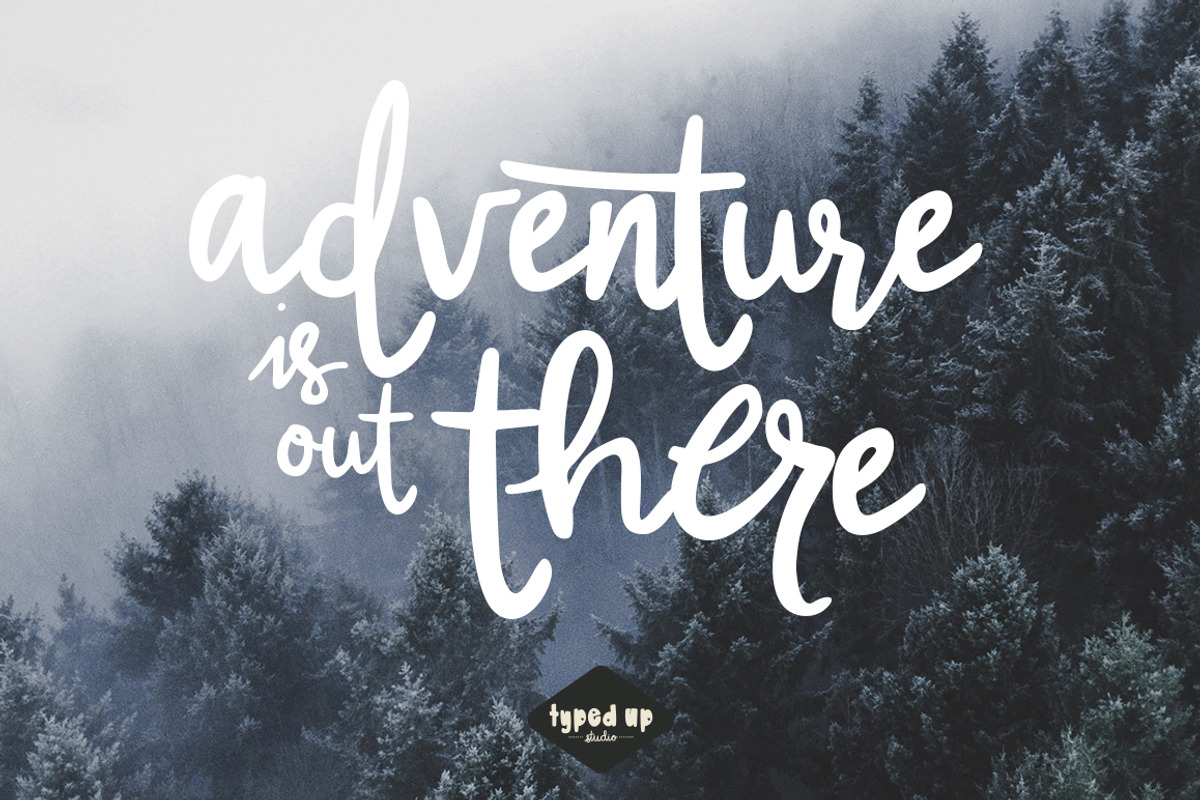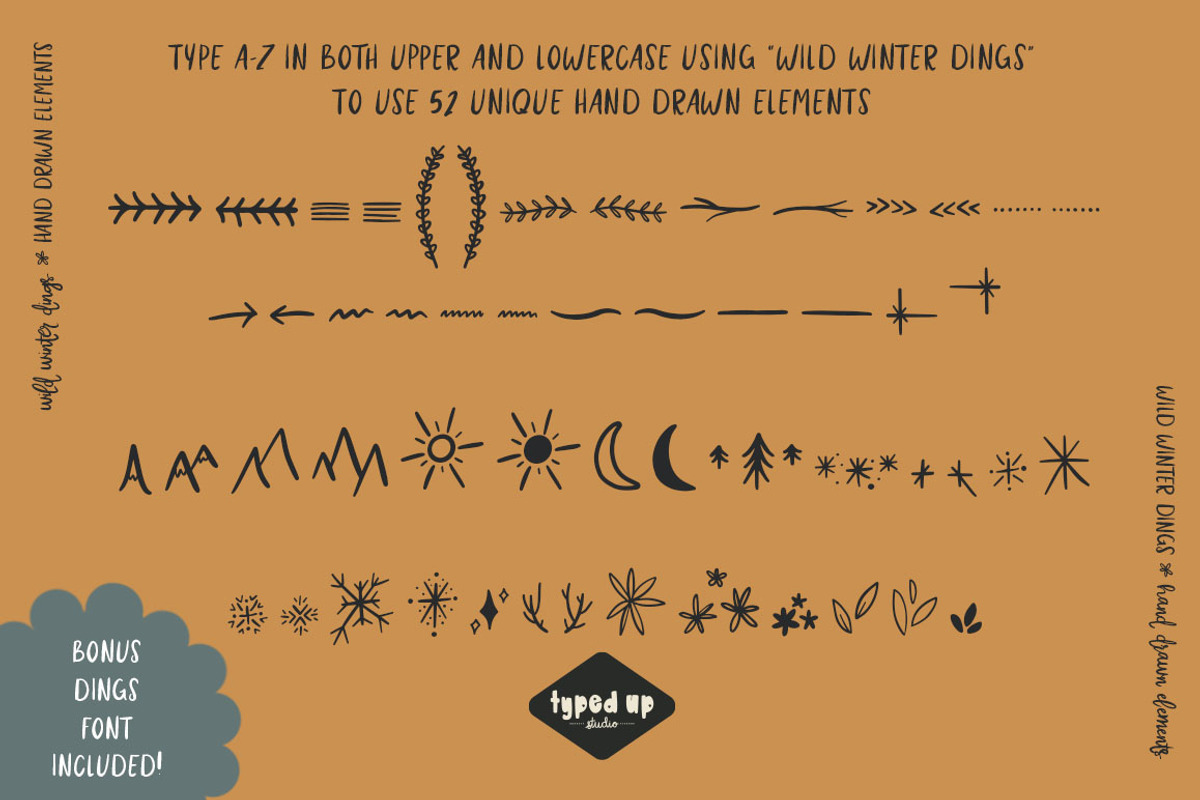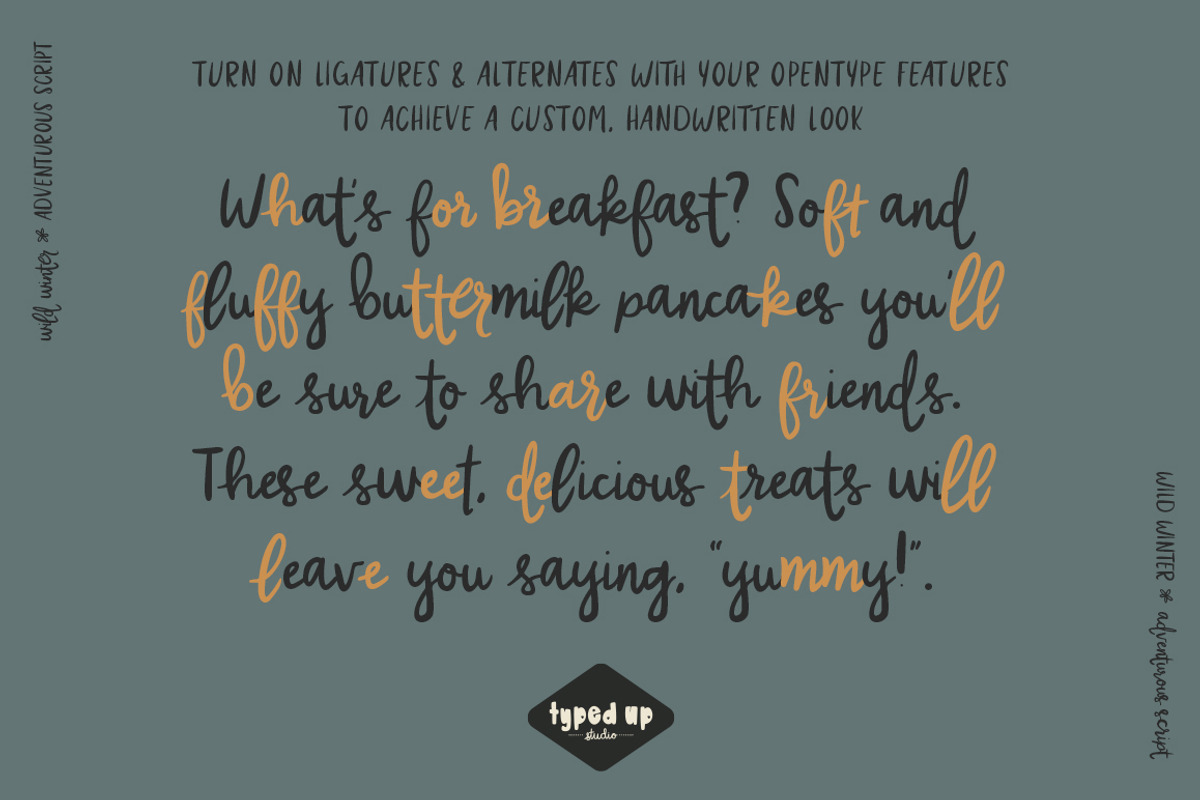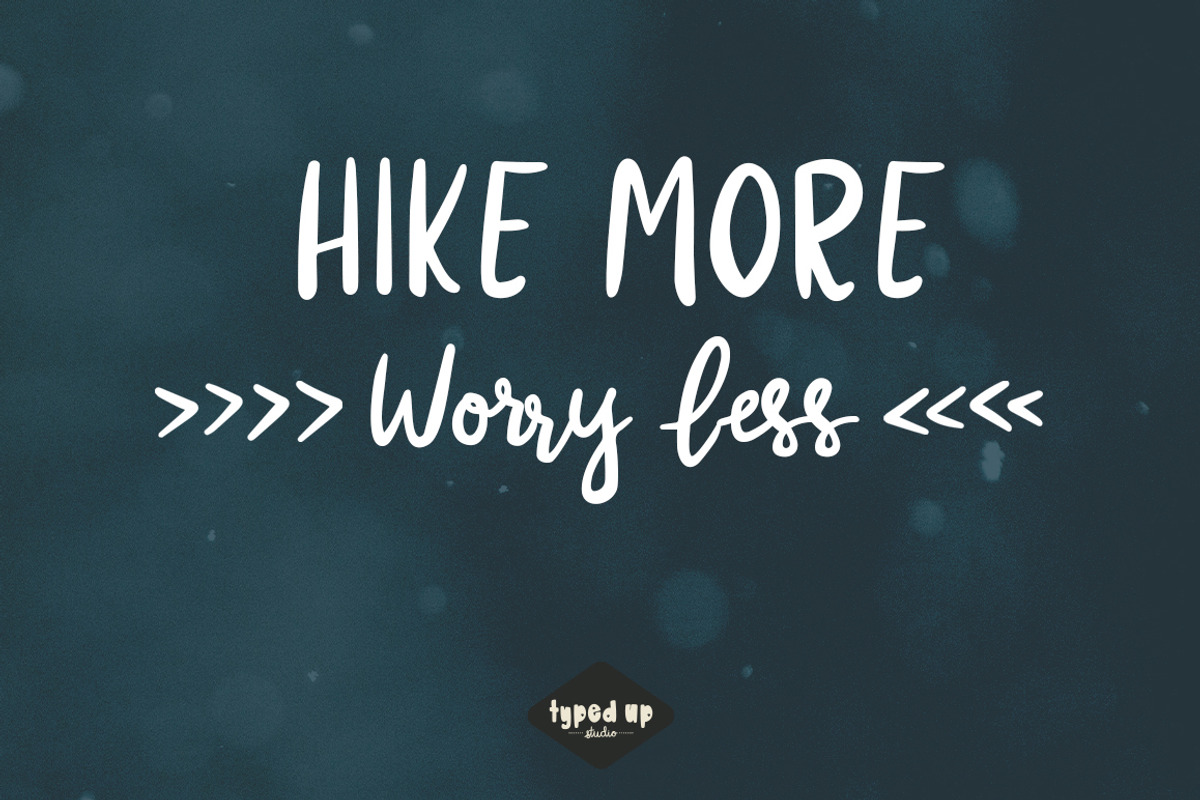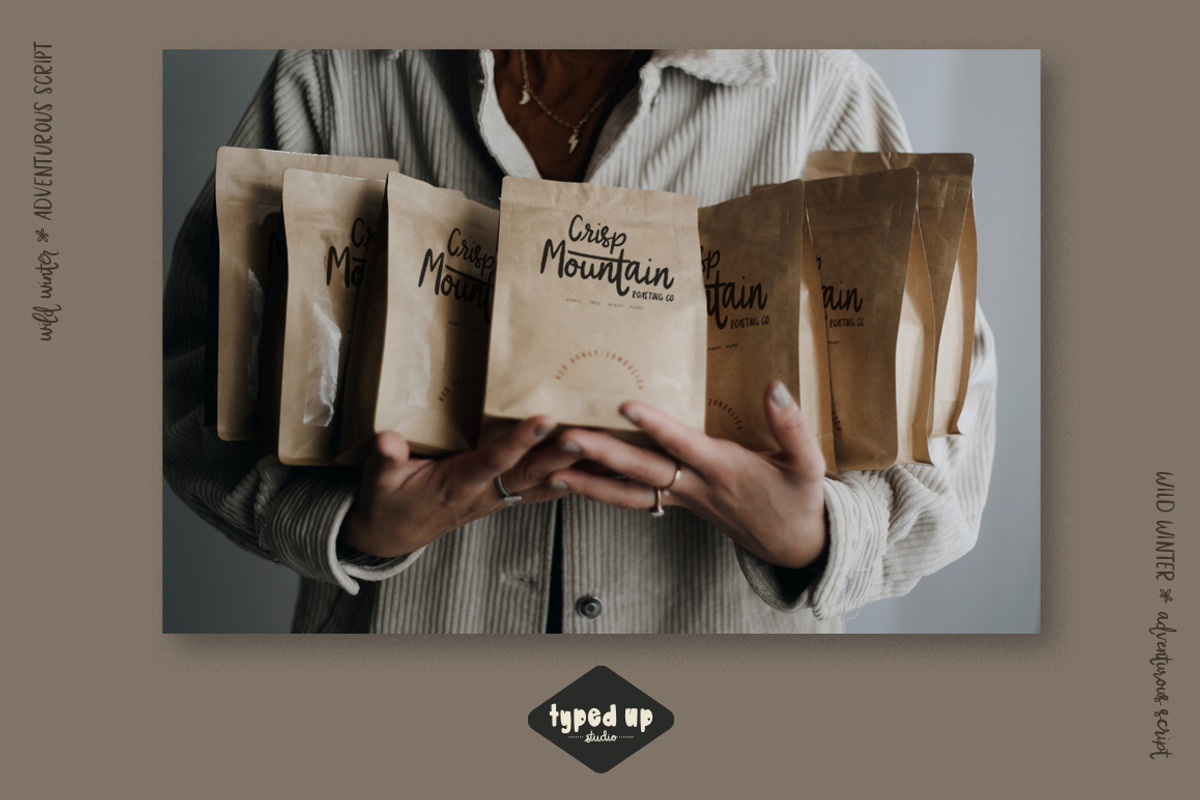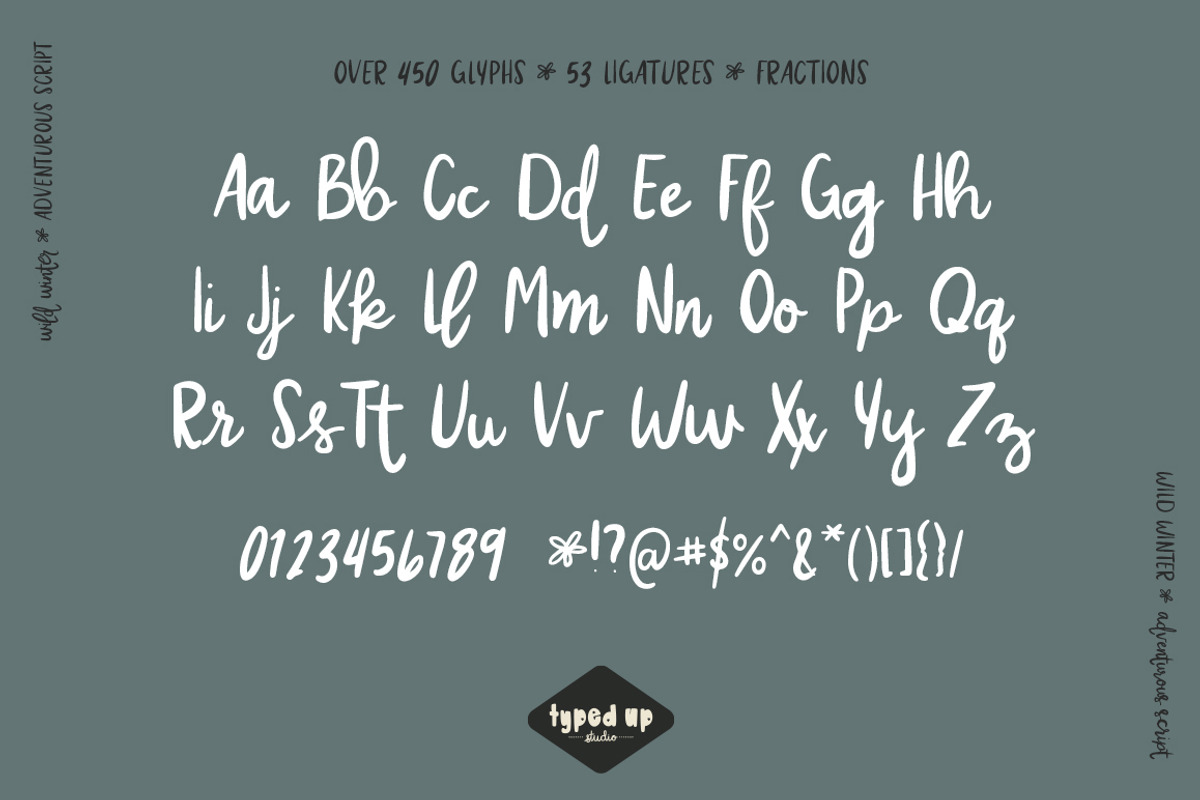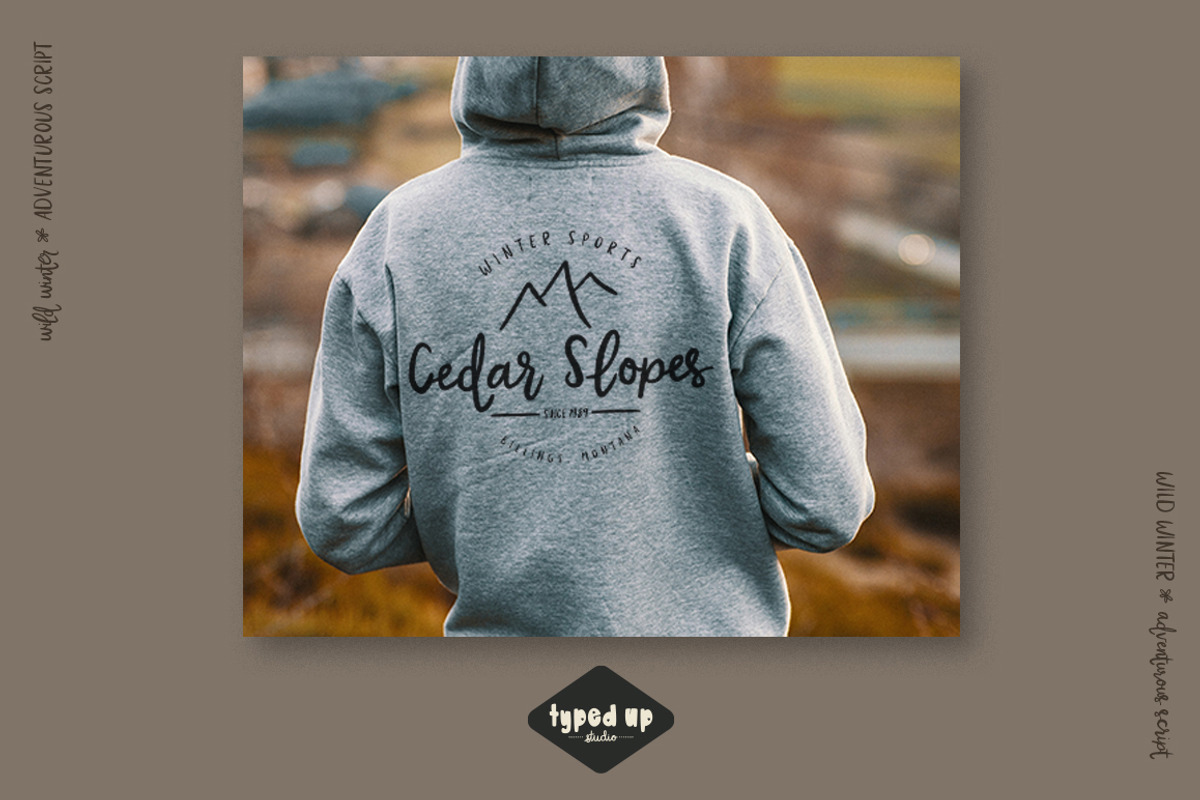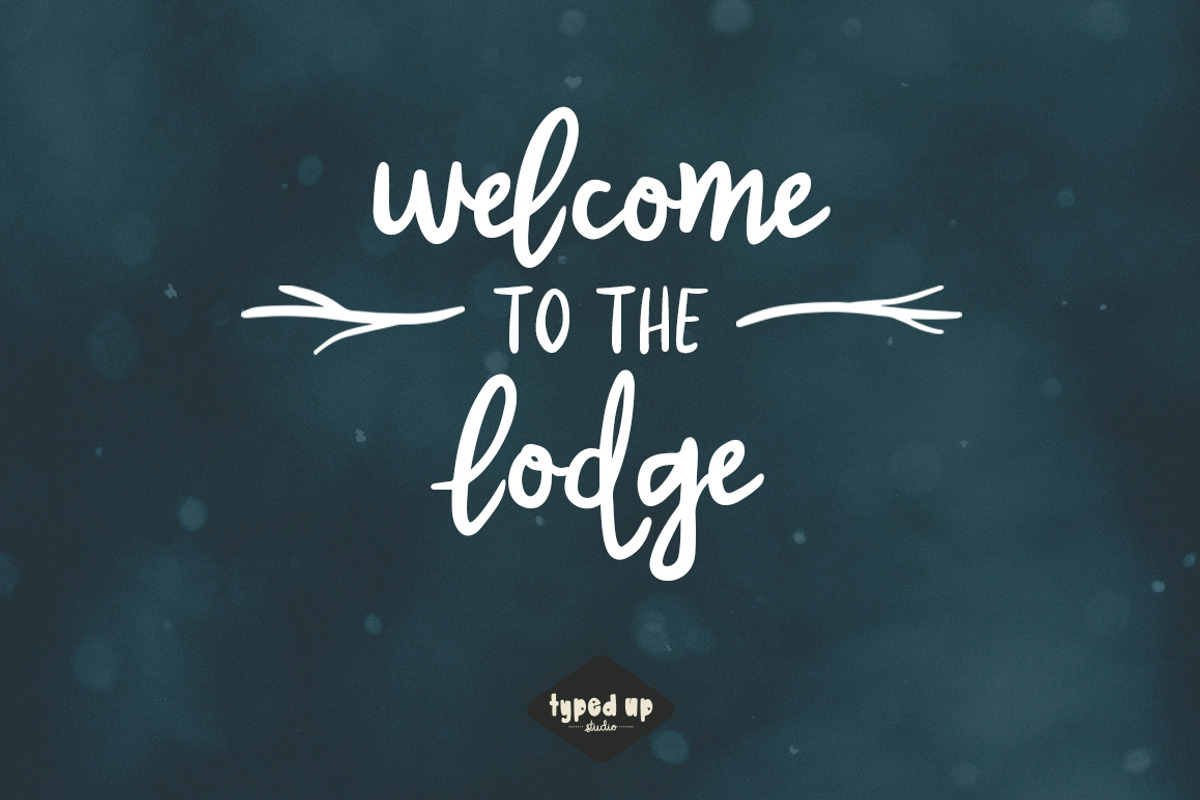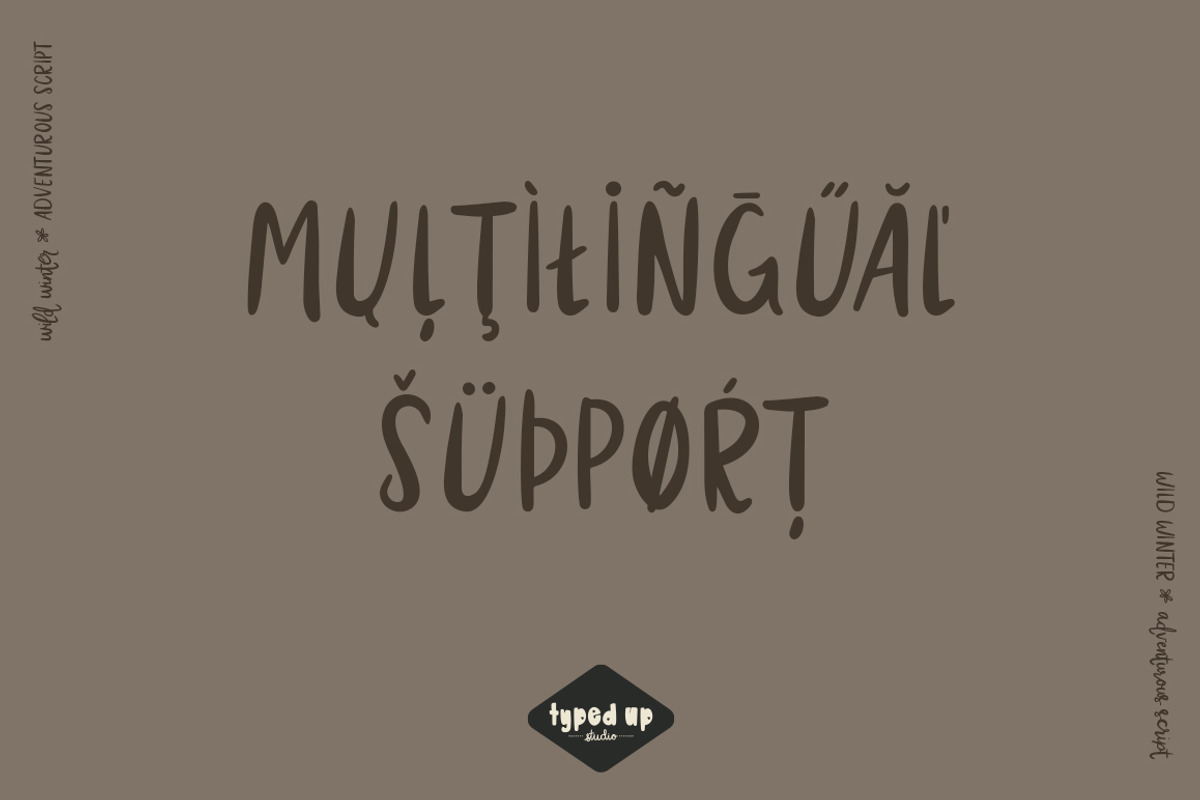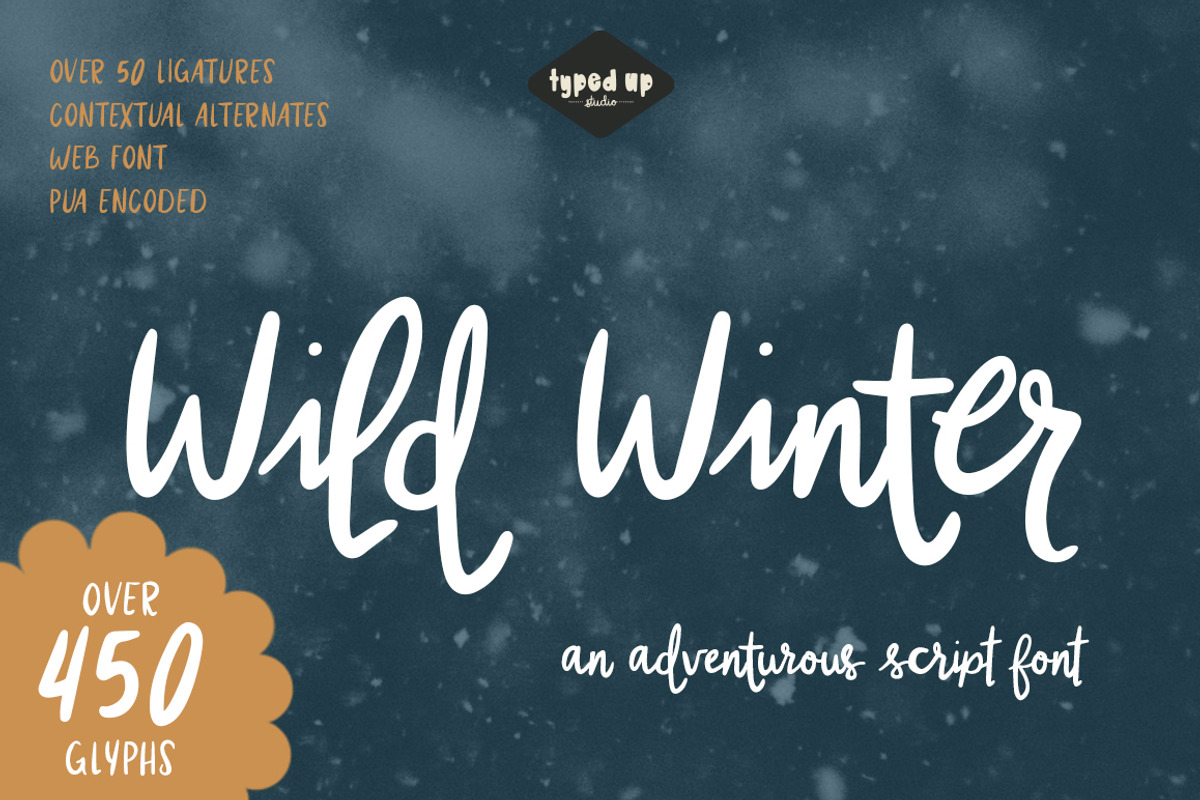
Wild Winter | Extensive Script Font
Take a walk on the wild side! Wild Winter is an adventurous script font created to achieve the perfect hand-drawn look for your next lettering or branding project. This font features full European & South American language support, however, please try your text in the testing tool above to make sure the characters you need are available.
Wild Winter also features over 50 ligatures and over 20 alternate characters that can be used with Adobe CC programs by accessing your Glyphs window. Plus the alternate characters as a separate font for non-Adobe programs.
Smooth Edges and PUA encoded for cutting programs like Cricut or Silhouette.